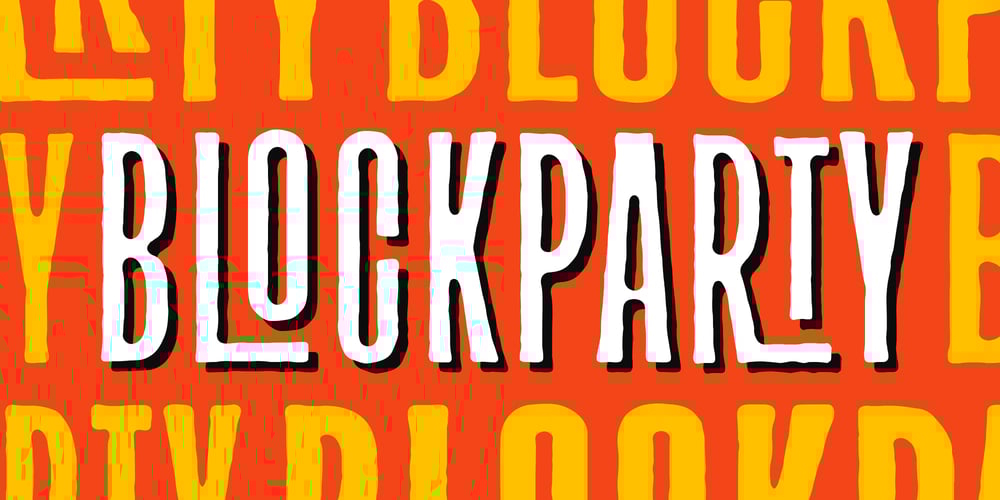
TC Block Party Font Family was designed by Tom Chalky and published by Tom Chalky. TC Block Party contains 4 styles and family package options. Introducing the Blockparty Font Family – bold, handcrafted, and packed with bundles of energy. With big, quirky letterforms, Blockparty is designed to stand out! Whether you’re working on posters, packaging, or social media graphics, this font is all about grabbing those all-important eyeballs.Featuring over 90 unique discretionary ligatures, it’s easy to add a playful edge to your typography. Blockparty is versatile and fun—great for anything from party-themed projects to bold colorful branding.Key Features: Over 90 unique discretionary ligatures for a playful touch Multilingual support, Covering all Western languages and a bunch more (Latin 1 Extended) Handcrafted, perfect for eye-catching displays Ideal for festival, party, and celebratory themes Suited for posters, packaging, branding, and social media graphics that need some extra spice